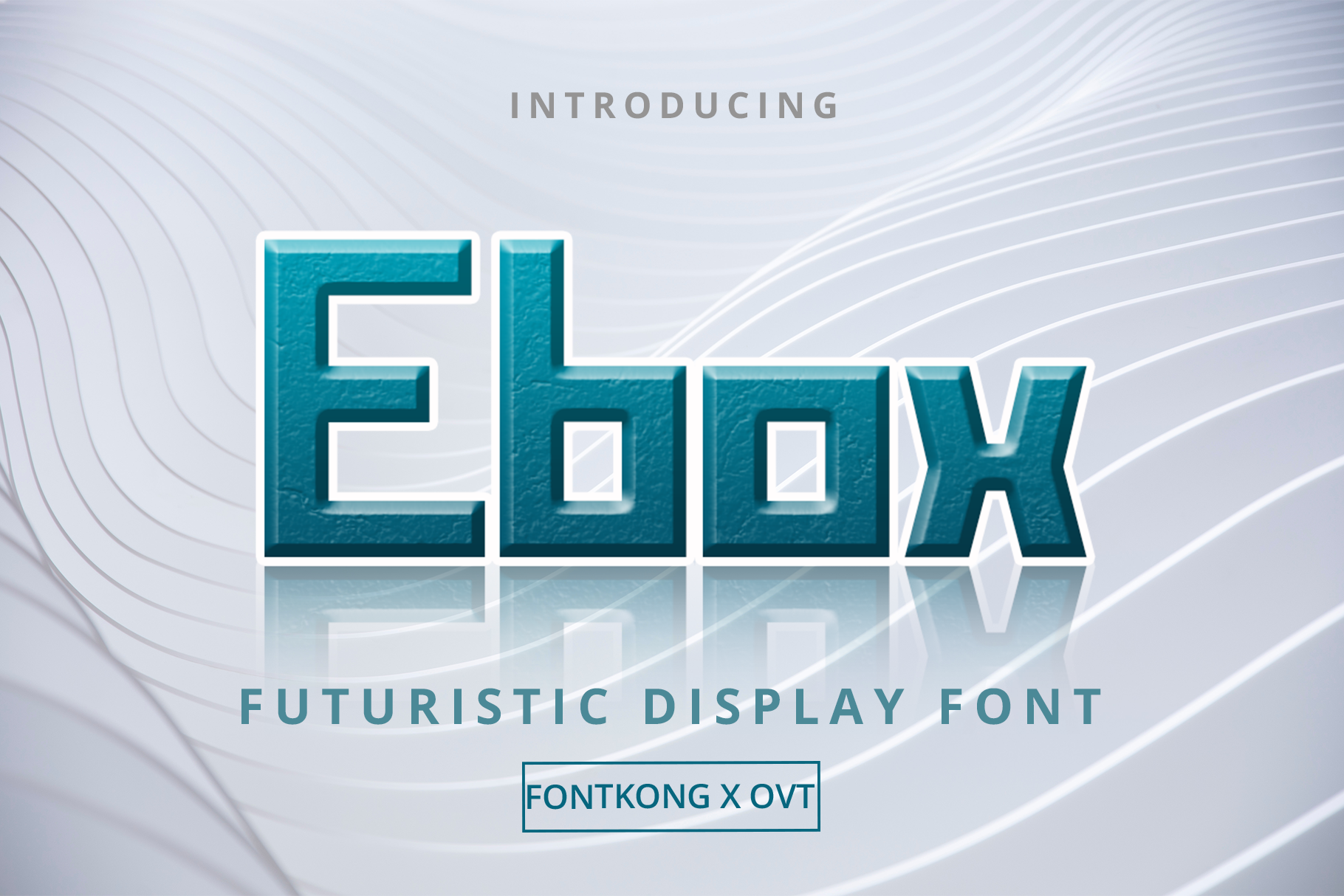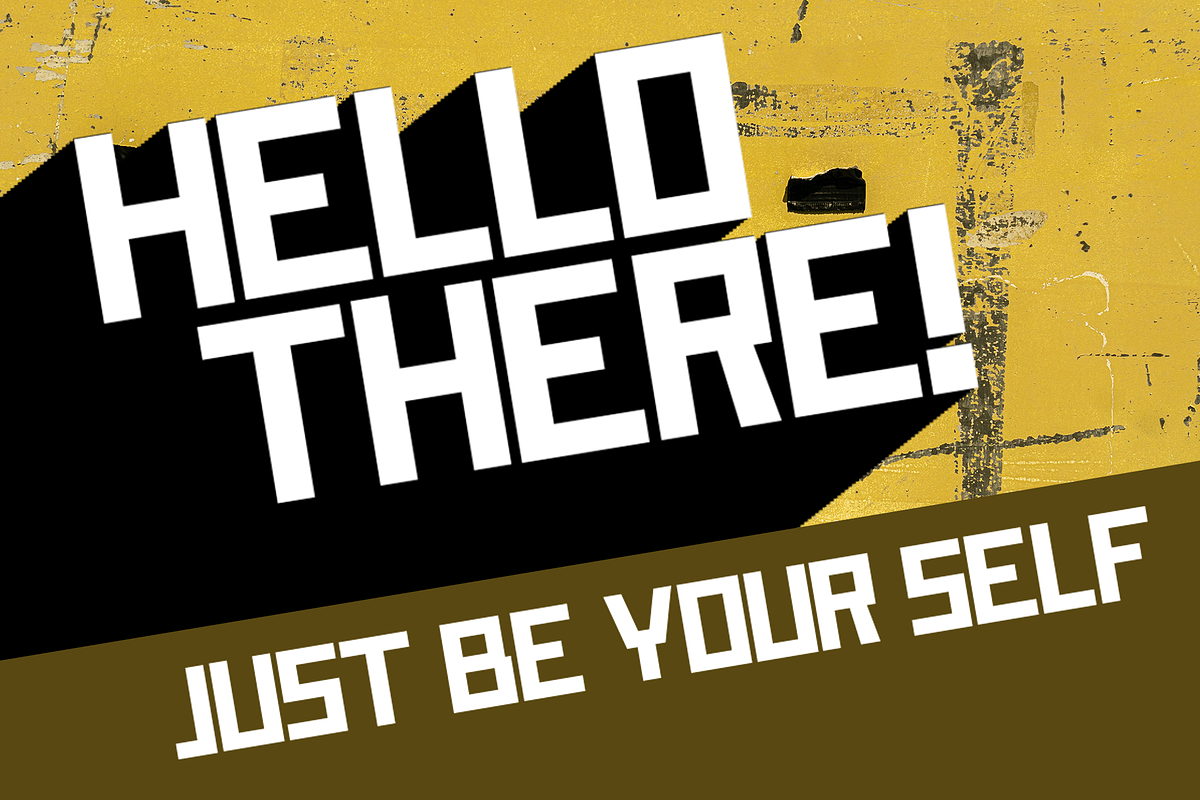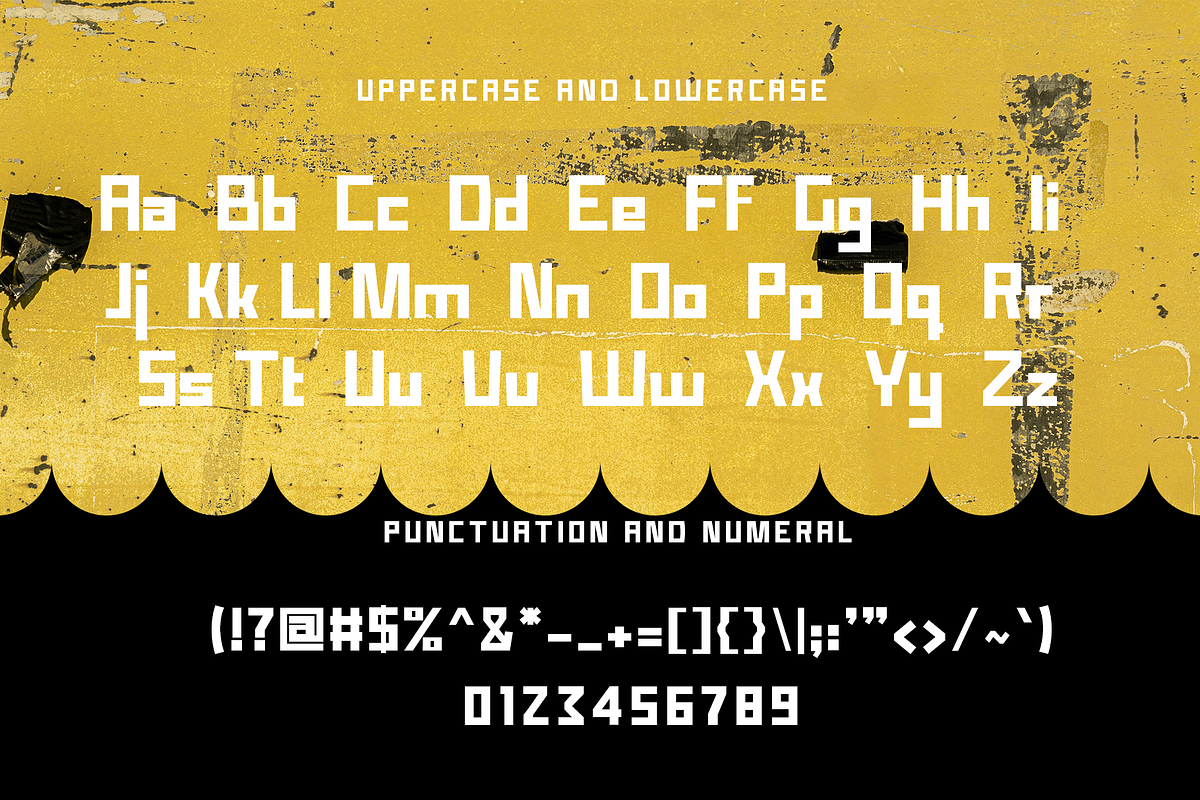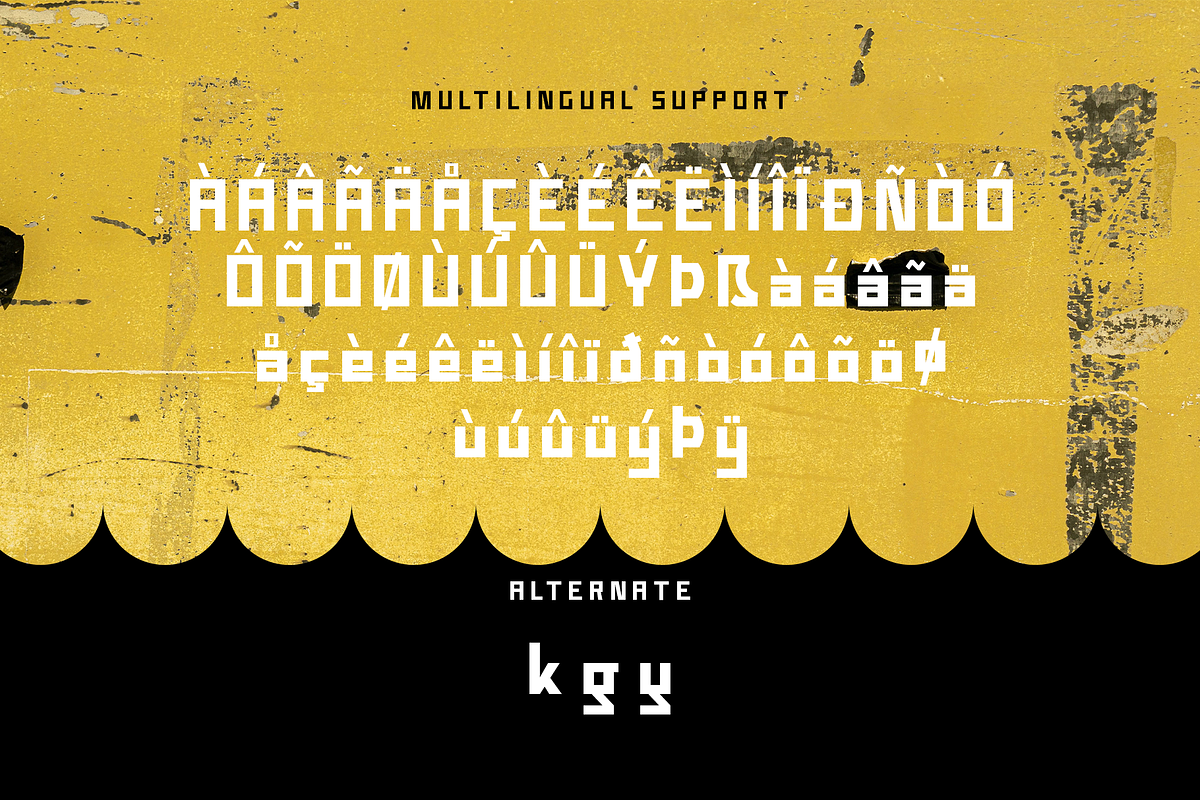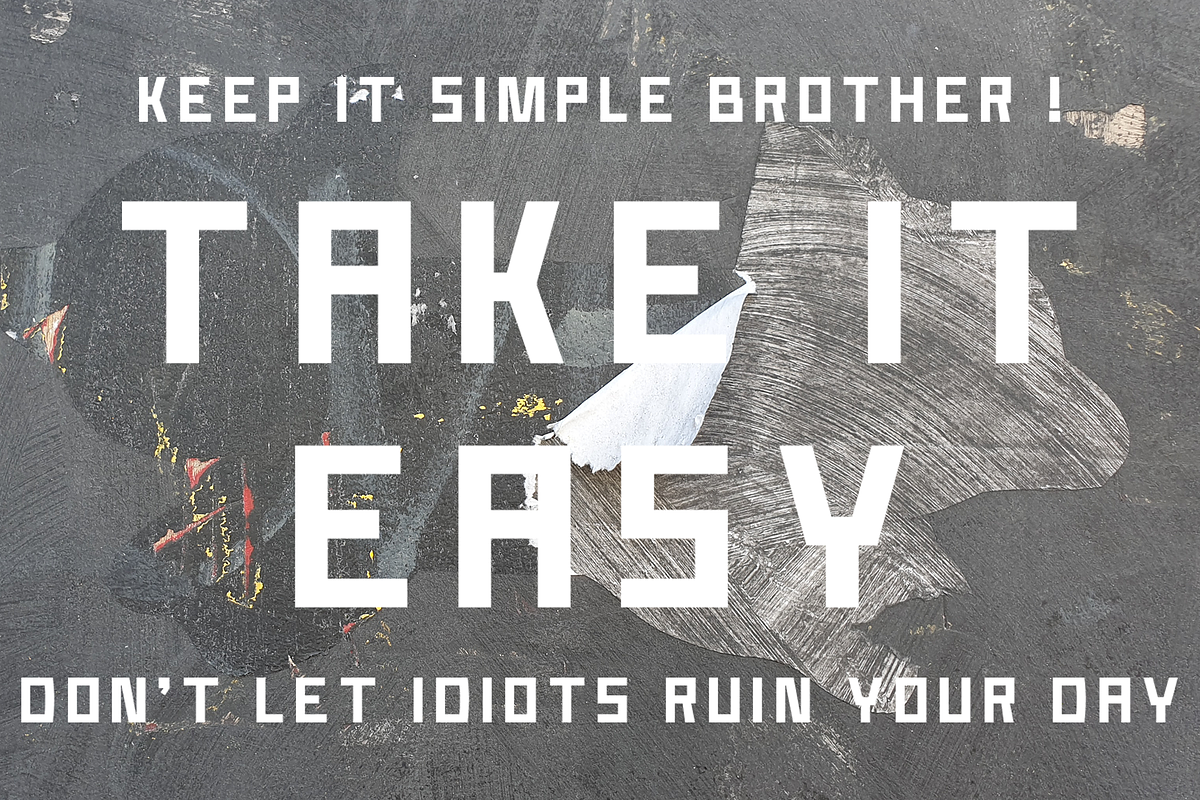
Ebox - Futuristic Display Font
Introducing "Ebox," a futuristic display font that brings a sleek, cutting-edge aesthetic to your design projects. Perfect for tech enthusiasts, graphic designers, and creatives aiming to capture the essence of the future, Ebox combines modern design elements with a forward-thinking style to deliver a font that stands out.
Ideal for technology branding, sci-fi posters, gaming interfaces, and innovative advertisements, Ebox’s sharp lines and geometric shapes provide a dynamic and high-tech look. Each character is meticulously crafted to ensure clarity and visual impact, making your designs both memorable and forward-looking.
The "Ebox" font includes a complete set of uppercase and lowercase letters, numbers, and punctuation marks, offering versatility and flexibility for various design applications. Whether you're creating futuristic branding or eye-catching digital content, Ebox enhances your projects with its modern and innovative typography.
Step into the future of design with Ebox, a futuristic display font that embodies the spirit of innovation and technology